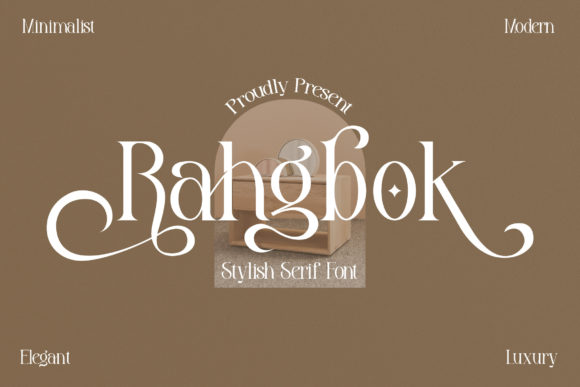
Introducing Rahgbok Font, a timeless and sophisticated serif font that's guaranteed to make a statement in your designs. Crafted with precision and artistry by Storytype Studio, Rahgbok embodies elegance and luxury, elevating your projects to new heights of visual appeal.
Unleash your creativity with Rahgbok's versatile character set, allowing you to explore a world of typographic possibilities. Its PUA encoding grants you effortless access to a treasure trove of glyphs and swashes, enabling you to add a touch of individuality and charm to your work.
With Rahgbok, you can confidently embark on any design journey, knowing that your projects will exude an aura of sophistication and professionalism. Let Rahgbok be your trusted companion in crafting logos, branding materials, invitations, wedding stationery, and any endeavor where a touch of timeless elegance is desired.
Don't settle for ordinary fonts. Choose Rahgbok and experience the transformative power of typography. Your designs will radiate a captivating allure that will leave a lasting impression on your audience. Embrace the beauty of Rahgbok and unlock the gateway to design excellence.